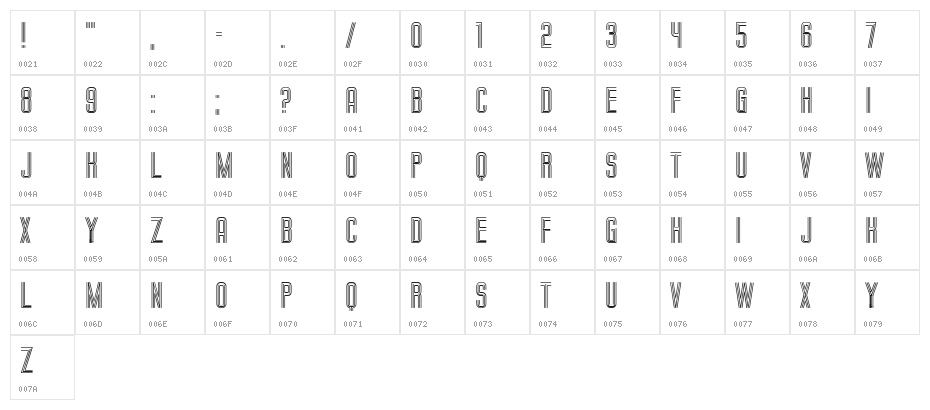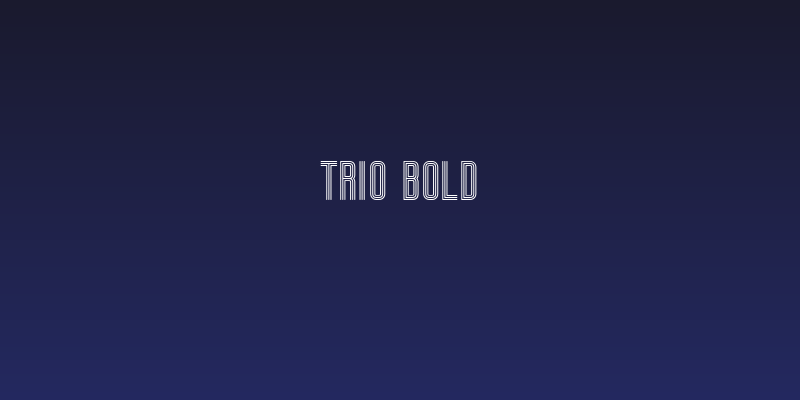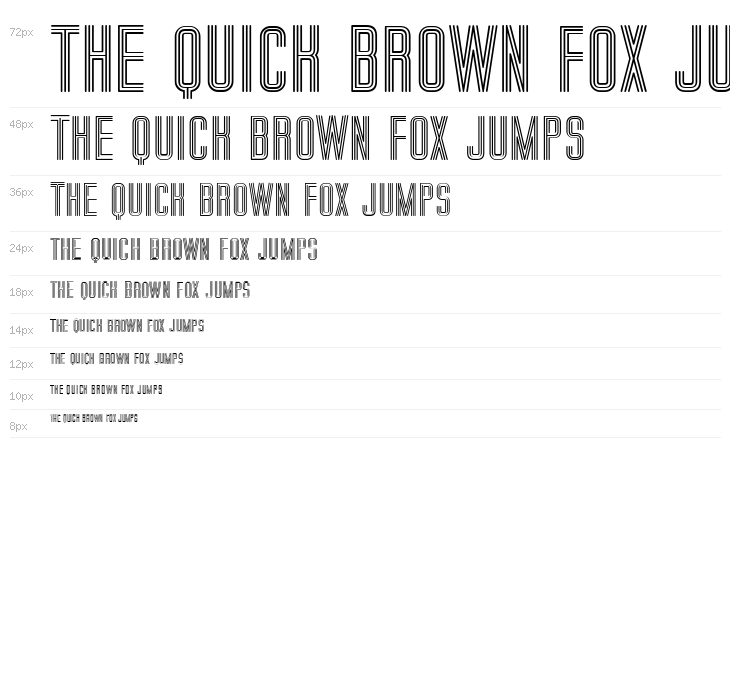
Trio Bold Font
Trio Bold Description
This font features a bold and striking design with a unique triple-line structure that creates a sense of depth and dimension. The uppercase and lowercase letters maintain a consistent geometric form, emphasizing vertical and horizontal lines. The numerals and special characters follow the same pattern, ensuring uniformity across all glyphs. The font's architectural style is both modern and retro, making it versatile for various design projects. Its clean lines and structured appearance make it suitable for eye-catching headlines and titles.
| Overall Style | Modern, Retro |
| Proposed Projects | Ideal for branding, posters, album covers, and any project requiring a bold, attention-grabbing typeface. |